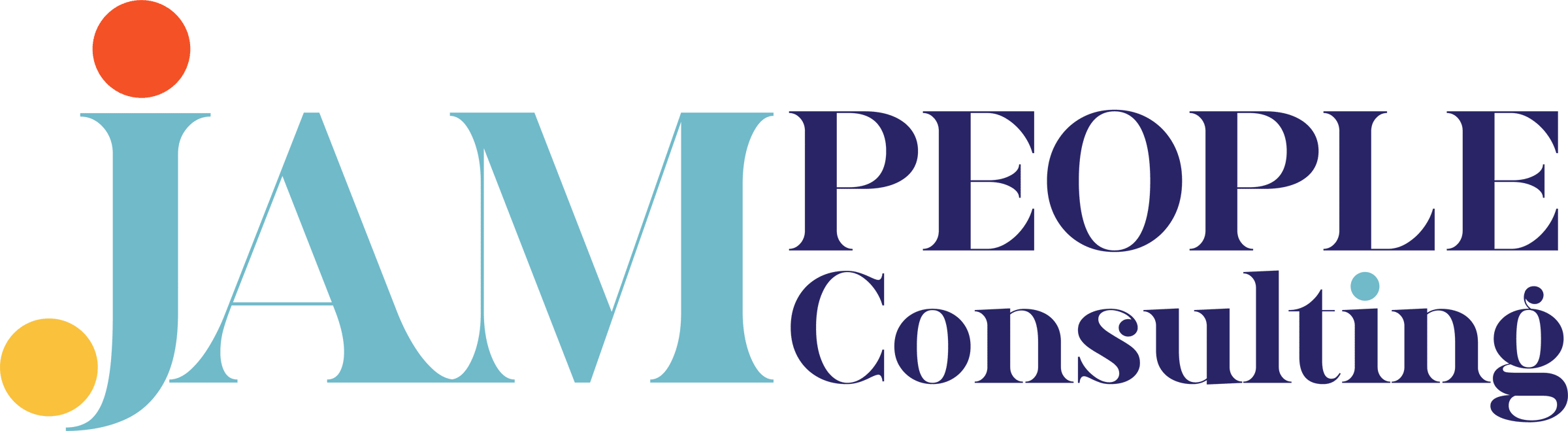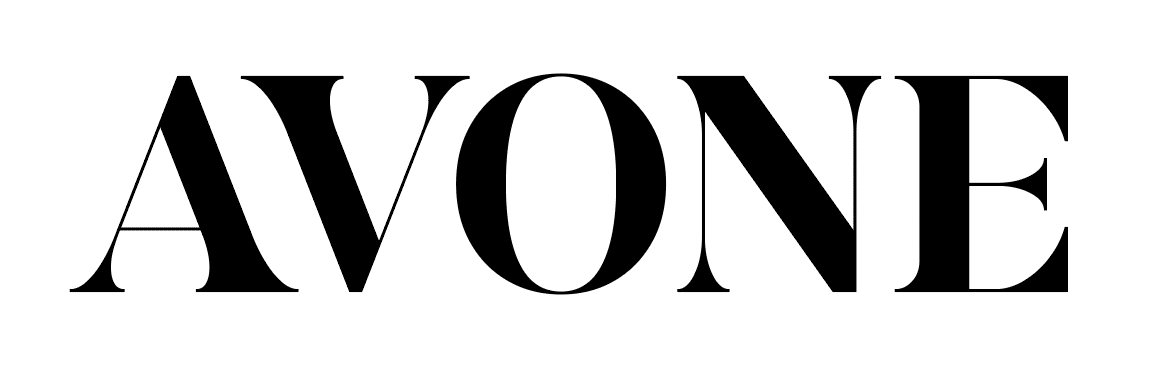
Font ❤️ Friday and Other Designery Things #34
The project was for a talent management consultancy, JAM People. If you know me, I'm a little obsessed with colour and I like playing with typography combinations including mixing it up with heights and font weights. In the brief, JAM wanted a style that would be fun but also had to look professional to corporate clients. After a few iterations, I used the typeface AVONE - a stylish modern serif font.
And here is what I produced: